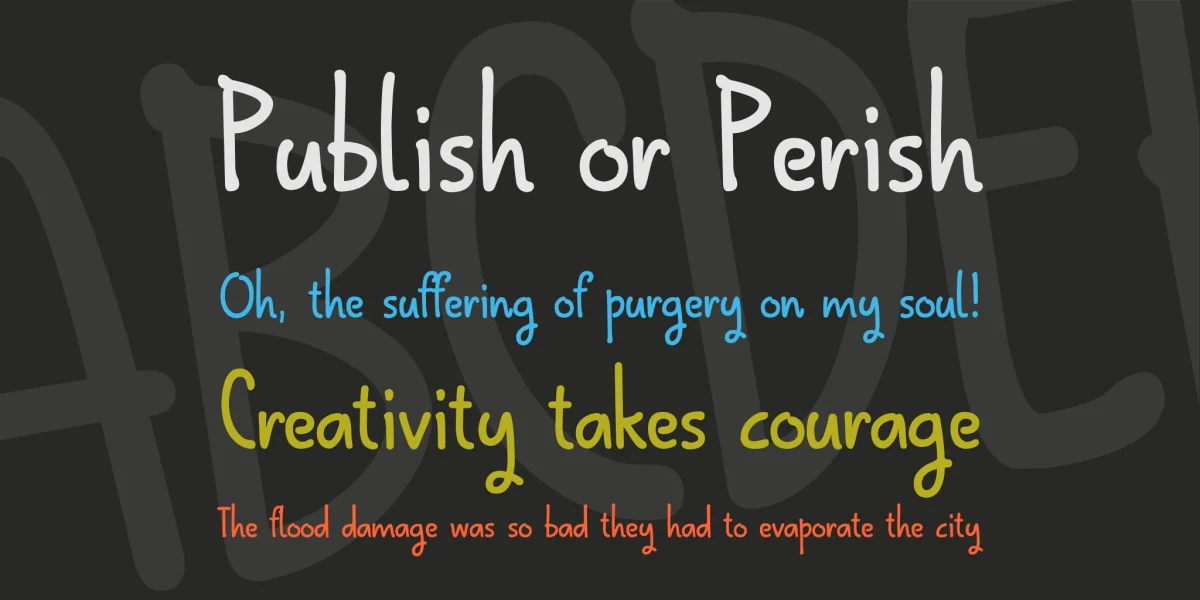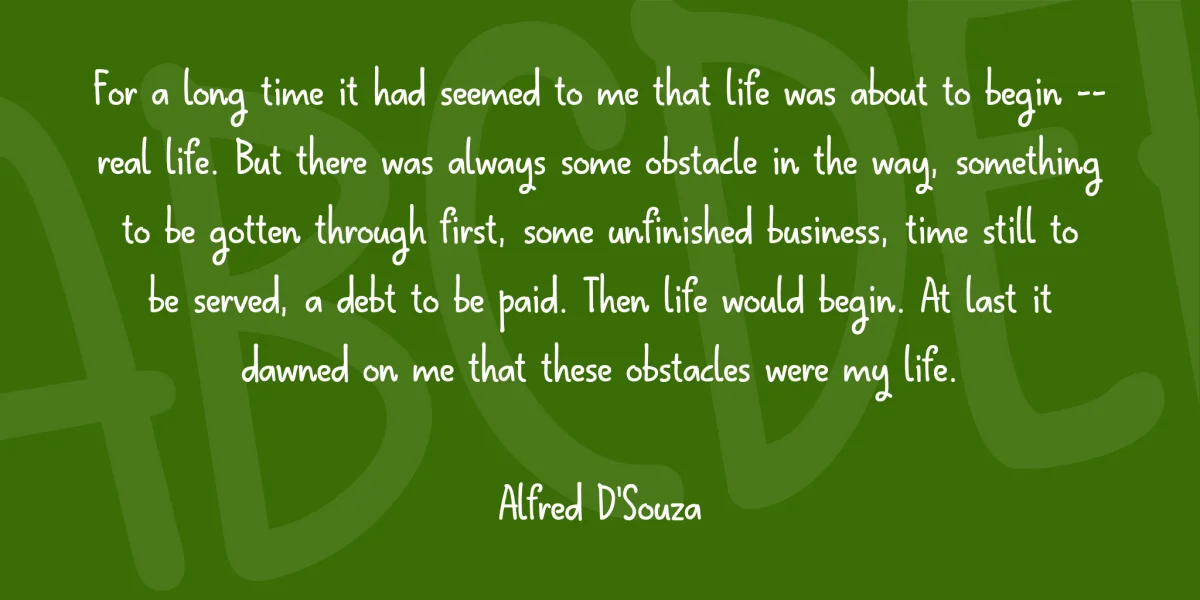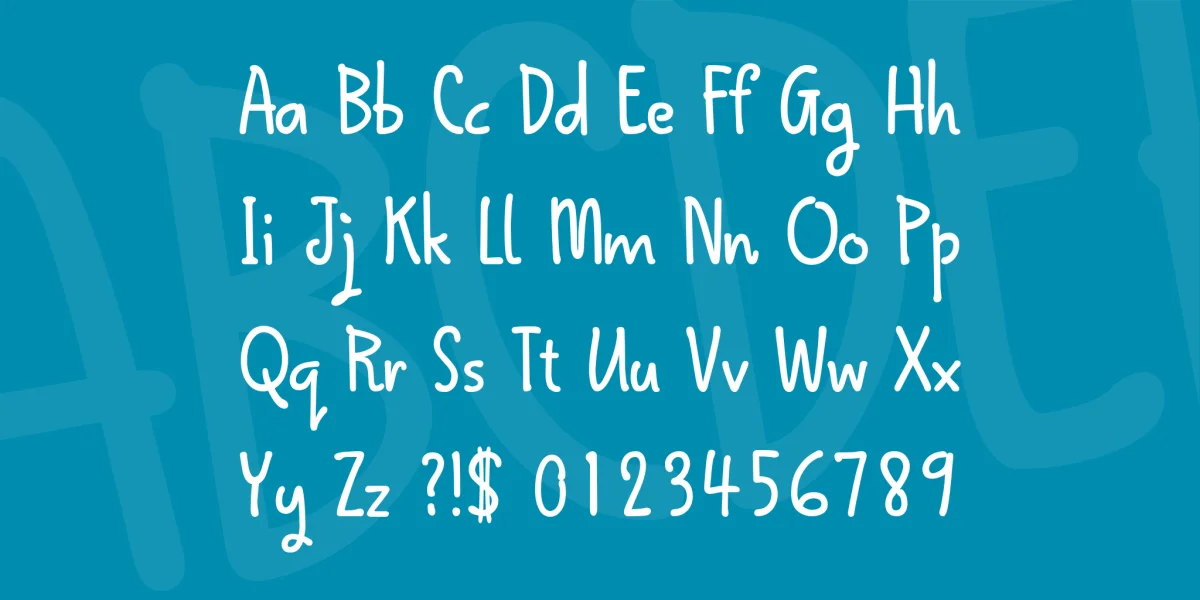
A fun and friendly pop font that looks good from very tiny to very large sizes. This font began with my own hand writing but has evolved over a long time into this clean and casual typeface. The extended version of this font has a bunch of alternate double letters to give a more authentic hand written look to the type. You can buy it here.